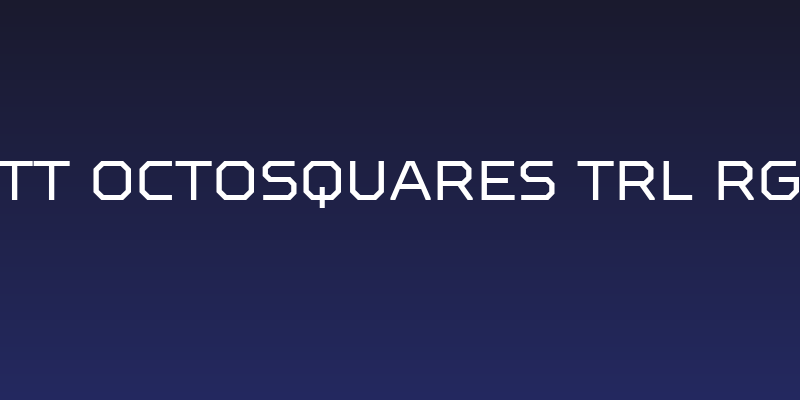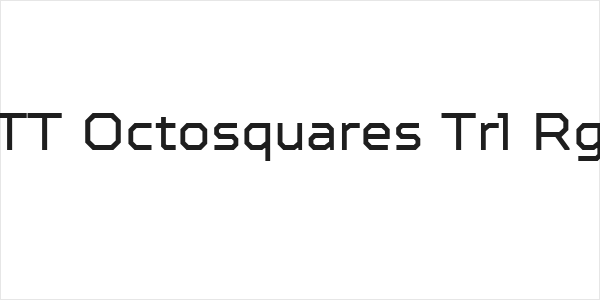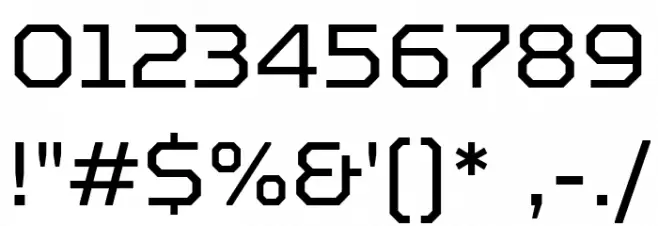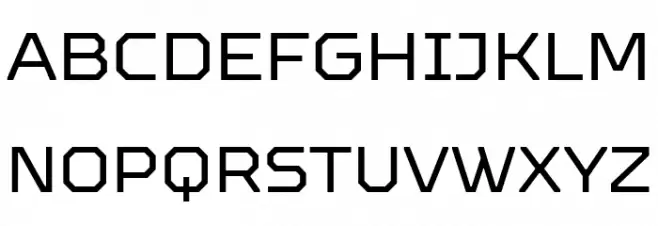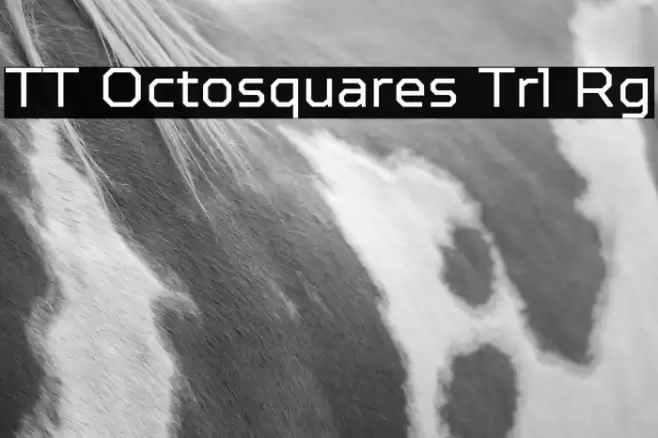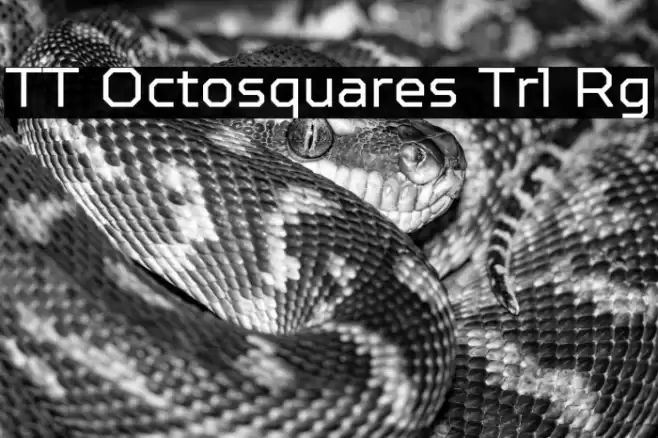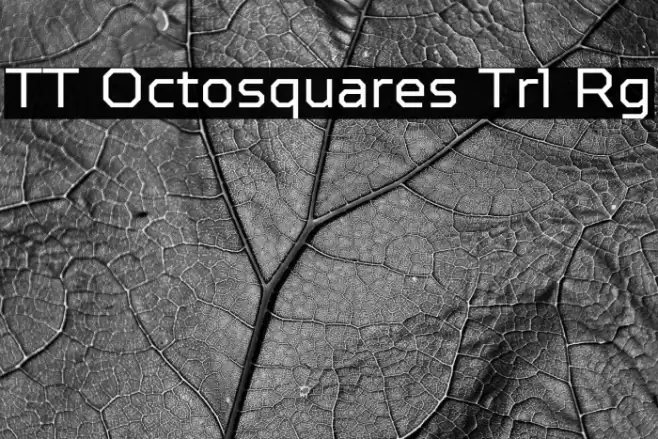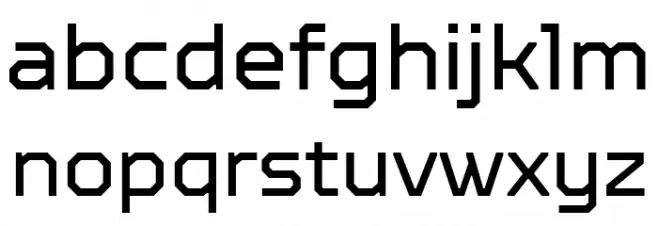
TT Octosquares Trl Rg Font
✎ Futuristic
| 分类 | Futuristic |
| 使用场景 | Logos, Headlines, Digital interfaces |
| 推荐项目 | Ideal for technology branding, digital interfaces, video game design, and futuristic-themed projects. |